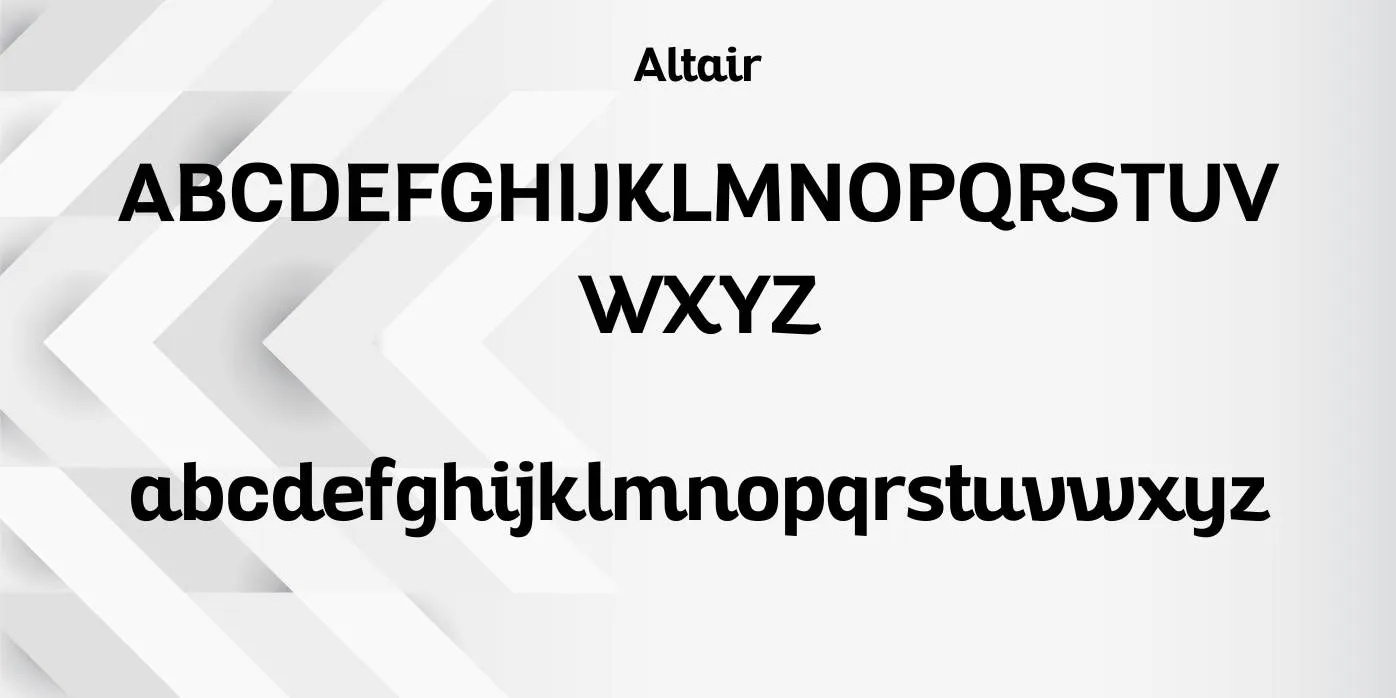
Altair Font
Now we talk about a very amazing typeface the Altair Font. This font is designed by Francesco Canvaro and manufactured by Zeta Fonts. It is a Sans-Serif font and can be used to design many projects. It has many different features which can be used to design attractive projects.
An online generator tool also supports this font which you can convert your simple text into a stylish look without downloading the font. The weight of the font is semi-bold, extra-bold, and regular. Its width is medium (normal). You can use it for pairing with other fonts like hando font to give a more attractive look to your projects.
Usage This stunning font can be used to design many different projects. It has characters, small letters, capital letters, special characters, and punctuation. It can be used to make attractive and bold headlines. To make attractive logos and titles you can use this font as well.
It is also good for making websites and graphic designs. You can use Adobe Photoshop, CSS, and Canva for making different projects with this font. To make Book covers, magazine covers, and novels it is a good option. This typeface is a very nice choice for both print and digital media.
Tahitian Pangasinan Khakas /Pilipino) Tswana, and Turkmen. FAQs! What type of font is Altair Font? It is a very nice and amazing Sans- Serif Font.
You can use it for making so many different projects. It has 14 different styles in its family. Who is the designer of Altair Font? This amazing font is designed by Francesco canvaro and manufactured by Zeta Fonts.
You can make different projects by using this font. Can I use Altair font for making Logos? Yes, definitely to make attractive and amazing logos this is a very useful font and can be used to design all types of attractive logos. What font does Altair use?